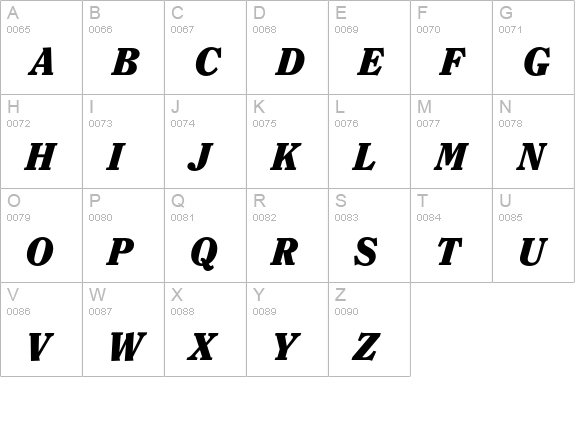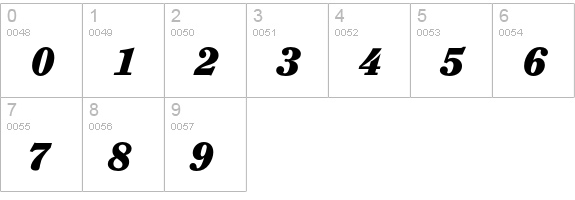
ClearfaceEF-BlackItalic Font Details
ClearfaceEF-BlackItalic font is a sleek and elegant typeface that exudes sophistication and modernity. Its bold and italic design makes it perfect for adding a touch of luxury to any design project. The ClearfaceEF-BlackItalic font is versatile and can be used in a variety of applications such as branding, advertising, and editorial design. The best part is that ClearfaceEF-BlackItalic font is completely free to download at FontsMarket.com. This means you can access this high-quality font without any cost, making it a valuable resource for designers and creatives looking to elevate their work with a premium typeface. Don't miss out on the opportunity to enhance your designs with the ClearfaceEF-BlackItalic font, available for free download now at FontsMarket.com.